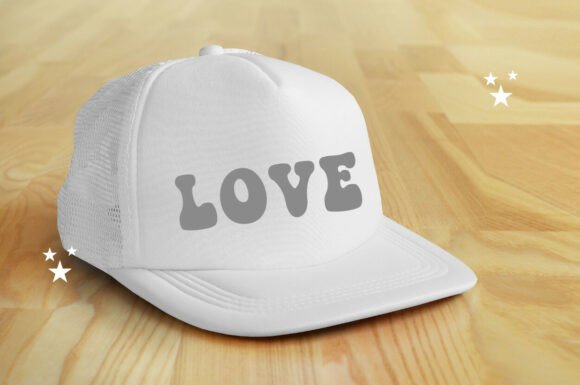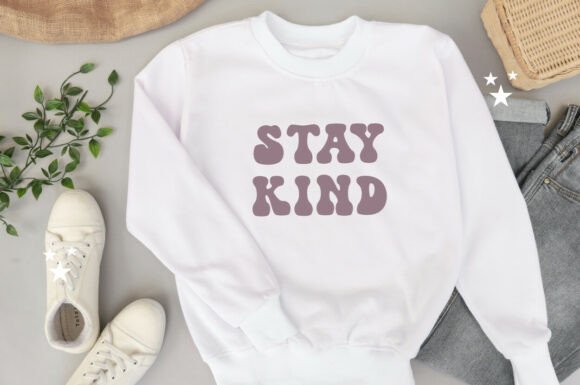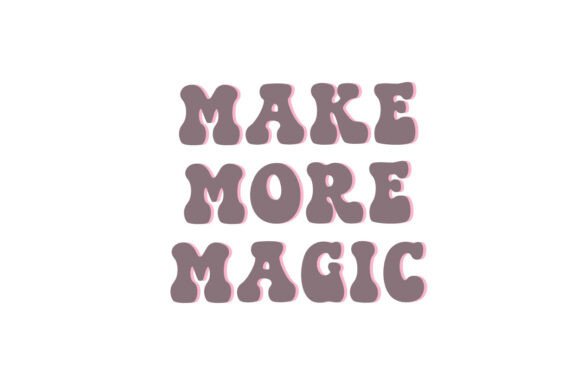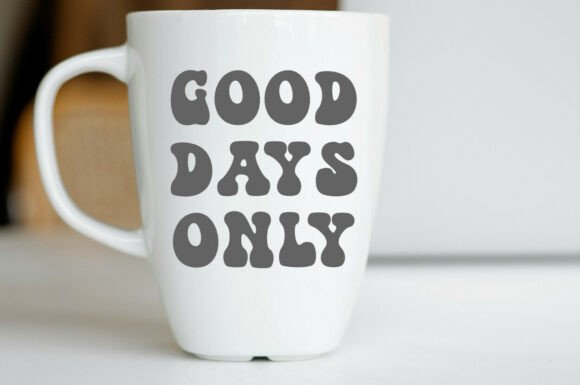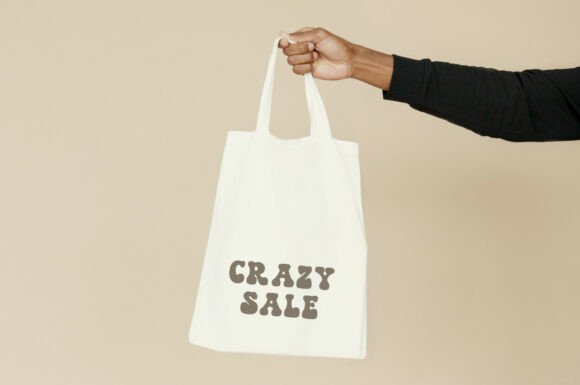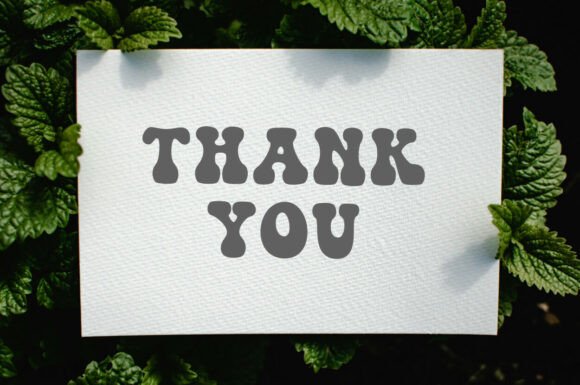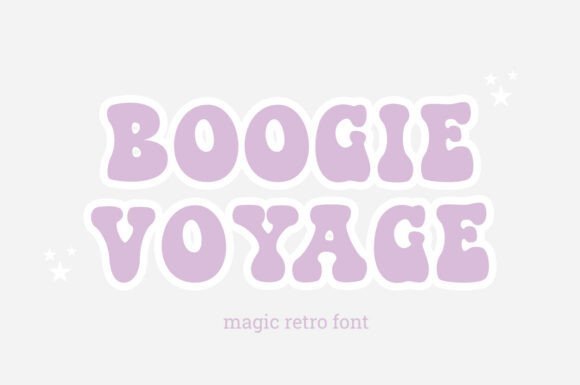
Get Ready to Groove: Unlocking the Cosmic Power of Typography
Have you ever stumbled upon an old record collection, and the sound of funky beats and psychedelic melodies instantly transports you to a bygone era of creative bliss? That’s exactly what happens when you unleash the magic of the Boogie Voyage Font – a retro typographic gem designed to capture the essence of 70s funk and disco aesthetics.
Boogie Voyage Font is more than just a typeface – it’s a visual journey through time, featuring heavy, “bubbling” letterforms with ultra-smooth curves and a rhythmic, undulating baseline that’s sure to get your creative juices flowing. For designers, this font is a treasure trove of inspiration, offering a unique blend of professional warmth and legendary creative energy that’s perfect for retro-themed projects.
Whether you’re designing vibrant music festival branding, creative social media headers, or vintage-style poster art, the Boogie Voyage Font is an exceptional choice that’s sure to make your visuals stand out from the crowd.
Boogie Voyage Font Key Features
- Unique Characteristics: The Boogie Voyage font features a unique blend of 1970s and 1980s-inspired elements, with intricate details and ornaments, making it ideal for creating eye-catching and nostalgic designs.
- Font Weight: 5 weights, from Light to Bold, allowing for a wide range of design possibilities
- Font Style: Includes both upright and italic styles, as well as a range of swashes and alternates for added flair
Boogie Voyage Font Review
The Boogie Voyage Font is an interesting and unique addition to any design project. ✨ One of the things that works well is its energetic and playful feel, making it perfect for music-related or travel-based projects. The font’s bold lines and quirky shapes add a fun touch that can elevate any design. ✨ The font also includes a range of glyphs and characters, including international languages, making it a versatile choice for designers.
- Unique and Playful Feel – The Boogie Voyage Font is sure to add a touch of excitement to any project.
- High Character Count – The font includes a wide range of glyphs and characters, including international languages.
- Perfect for Music or Travel Projects – The font’s energetic and playful feel makes it a great choice for projects related to music or travel.
However, there are some limitations to the Boogie Voyage Font. ⚠️ One of the main issues is its readability in smaller font sizes. At smaller sizes, the font can become difficult to read, which may be a problem for designers who need to use the font in a variety of contexts. Additionally, the font’s bold lines and quirky shapes can make it difficult to use in more formal or professional projects.
Overall, the Boogie Voyage Font is a fun and versatile addition to any design project. While it may have some limitations, its unique feel and high character count make it a great choice for designers looking for a bold and playful font.
Getting the Most Out of Boogie Voyage Font
For the best results, use Boogie Voyage Font in bold or italic styles to add emphasis.
Experiment with different font sizes and colors to create a unique visual identity.
Use Boogie Voyage Font for headings, titles, and other attention-grabbing elements.
Boogie Voyage Font is ideal for:
Music and entertainment branding
Travel and adventure marketing
Young and energetic design projects